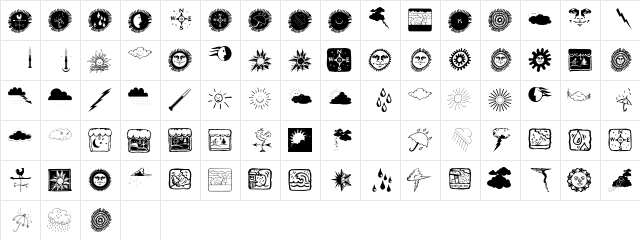
NowTheWeather Regular Font Preview
NowTheWeather Regular
Design Context for NowTheWeather Typeface
NowTheWeather is a composed and adaptable typeface that performs quietly and consistently across a wide range of design contexts.